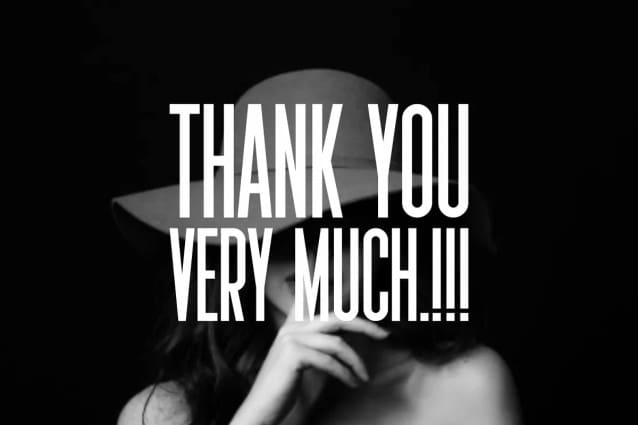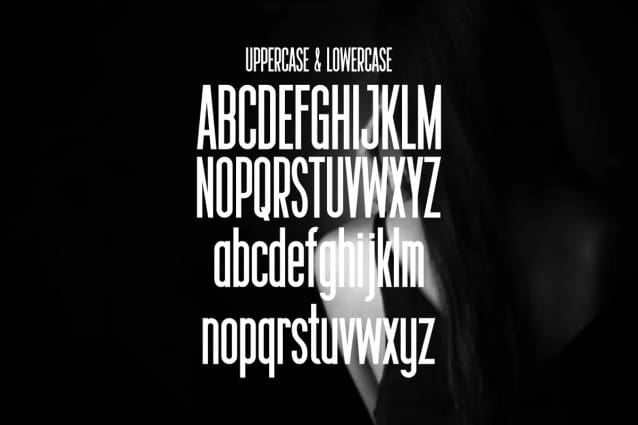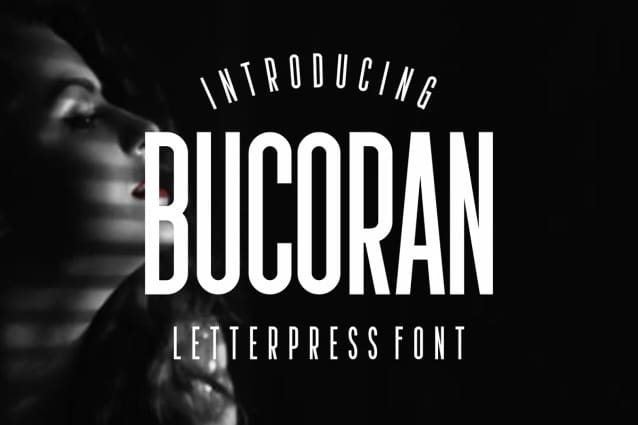
Bucoran Font
Bucoran Font – Condensed Sans Serif, is a modern and simple font, best used as a display for headings, logos, branding, magazines, product packaging, and invitations. BucoranFont comes with clean lines and smooth curves giving any project an extra touch of class.